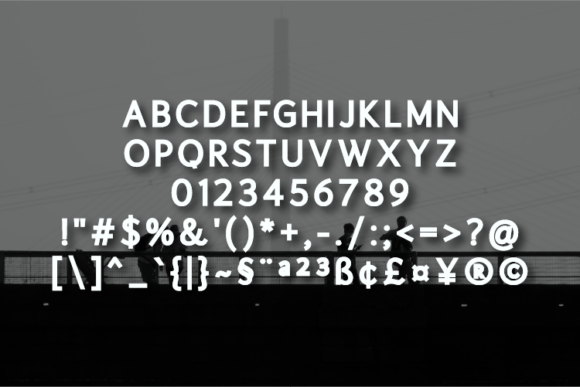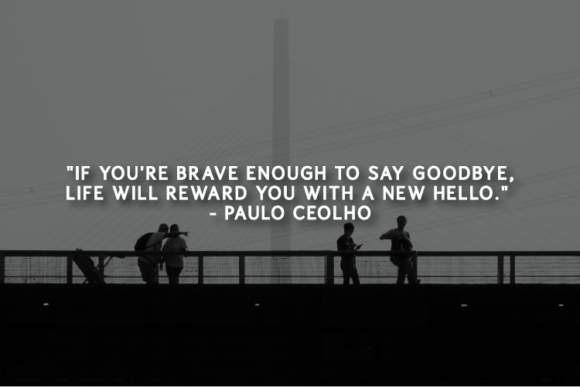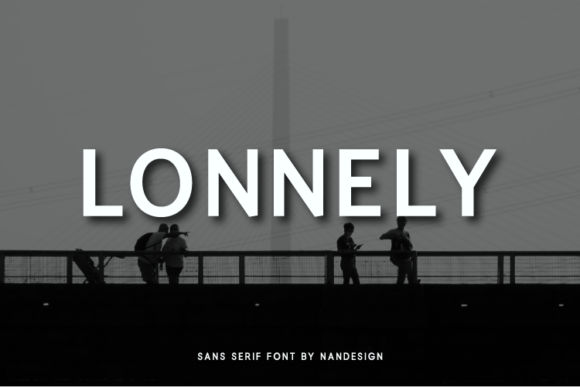
Introduction to Lonnely Font
Lonnely is a clean and neat sans serif font.
Whether you’re using it for crafting, digital designing, presentations or greeting cards making, it’s perfect .
Key Features of Lonnely Font
Why Choose Lonnely Font?
Lonnely Font offers exceptional quality and versatility, making it a valuable addition to your design toolkit. Whether you’re creating for personal projects or commercial use, Lonnely Font delivers professional results.